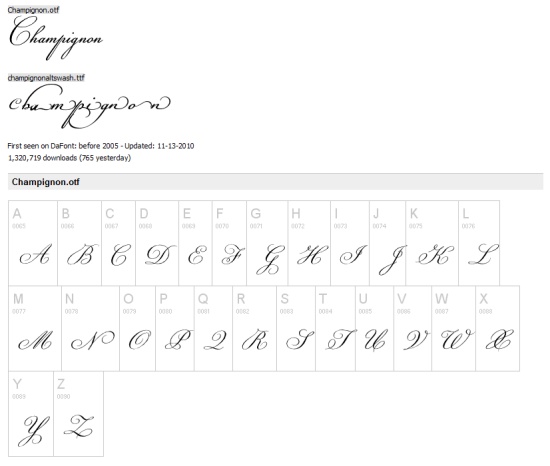
Libreoffice Script Fonts / Agrega Fuentes (Fonts) extras a LibreOffice desde el ... / How to change the default font in libreoffice writer and calc.. By eldonmartin in circuits software. Word arthur shows smallcaps feature. Add the following script to your home directory and use it to open every.pps file. When i open microsoft word, excel or libreoffice writer, i need to have a default font configured. I'd explain more if ligatures are automatically being applied in graphite fonts.
How to change the default font in libreoffice writer and calc. You can nevertheless, add new font substitutions (font fallbacks) for the particular fonts of your script, or. Libreoffice keeps using some default fonts besides the fonts replacement tool that packrat pointed out. Add the following script to your home directory and use it to open every.pps file. Script typefaces are based upon the varied and often fluid stroke created by handwriting, pretty much like the cursive fonts just typically more elegant.
Browse by alphabetical listing, by style, by author or by popularity. Getting started with libreoffice writer. When i open microsoft word, excel or libreoffice writer, i need to have a default font configured. It completely ignores the settings i've made. How to change the default font in libreoffice writer and calc. Word arthur shows smallcaps feature. I have decided to change the color of some programming code which are in courier new font. Script typefaces are based upon the varied and often fluid stroke created by handwriting, pretty much like the cursive fonts just typically more elegant. These settings can be changed in the libreoffice options. Expand the libreoffice writer option. You can nevertheless, add new font substitutions (font fallbacks) for the particular fonts of your script, or. After reading how to set and keep your preferred default font in word, paul reitman asked about doing the same thing in the free libreoffice. Add the following script to your home directory and use it to open every.pps file.
You can nevertheless, add new font substitutions (font fallbacks) for the particular fonts of your script, or. These settings can be changed in the libreoffice options. Browse by alphabetical listing, by style, by author or by popularity. By eldonmartin in circuits software. Script typefaces are based upon the varied and often fluid stroke created by handwriting, pretty much like the cursive fonts just typically more elegant. Archive of freely downloadable fonts. Getting started with libreoffice writer. Add the following script to your home directory and use it to open every.pps file. I have decided to change the color of some programming code which are in courier new font. It completely ignores the settings i've made. Set the default fonts as per your need. When i open microsoft word, excel or libreoffice writer, i need to have a default font configured. Go to format > fonts from the menu.